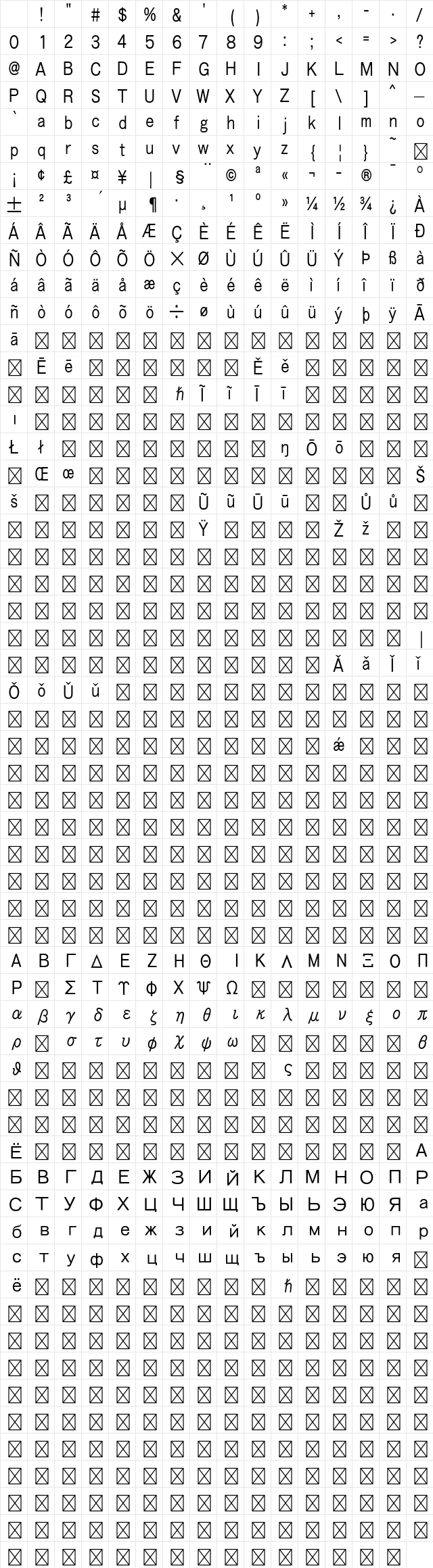
A-OTF MainichiNewspapersG Pro L
Style: L
Designer: Mainichi Shimbun
Design Context for A-OTF MainichiNewspapersG Pro
A-OTF MainichiNewspapersG Pro is a composed and adaptable typeface that performs quietly and consistently across a wide range of design contexts.